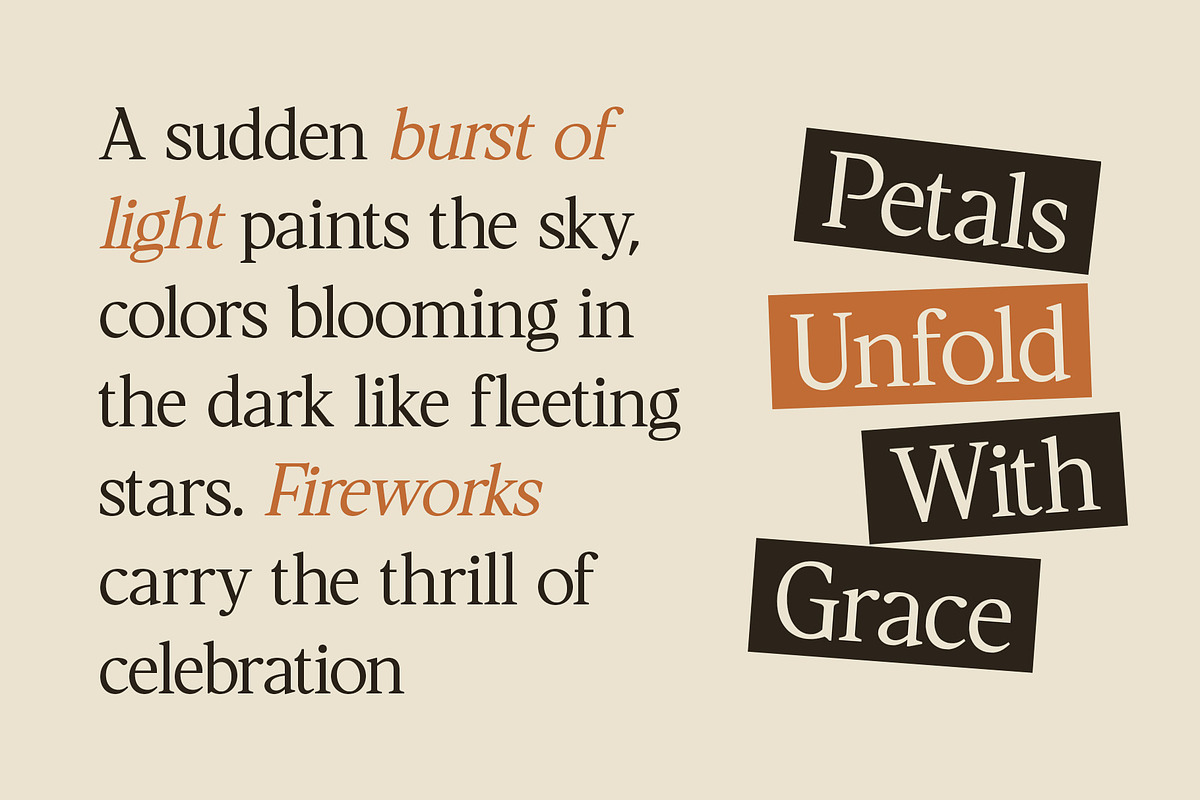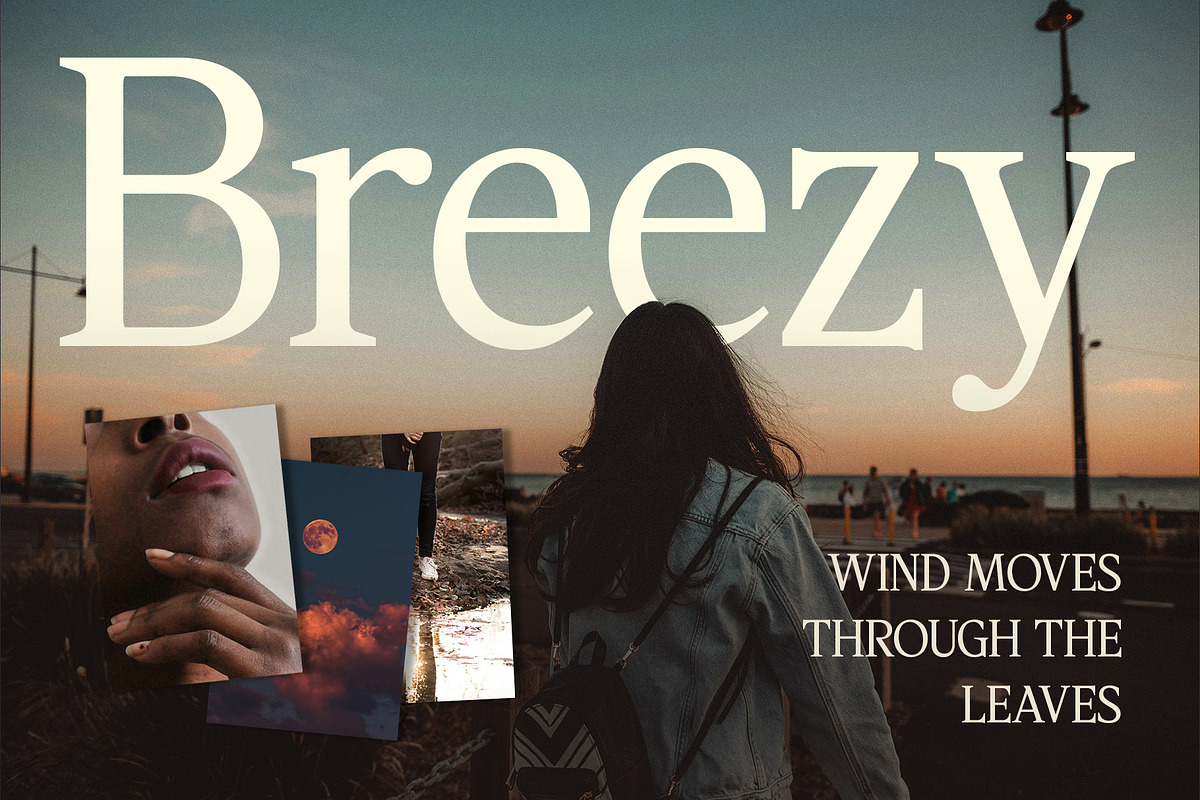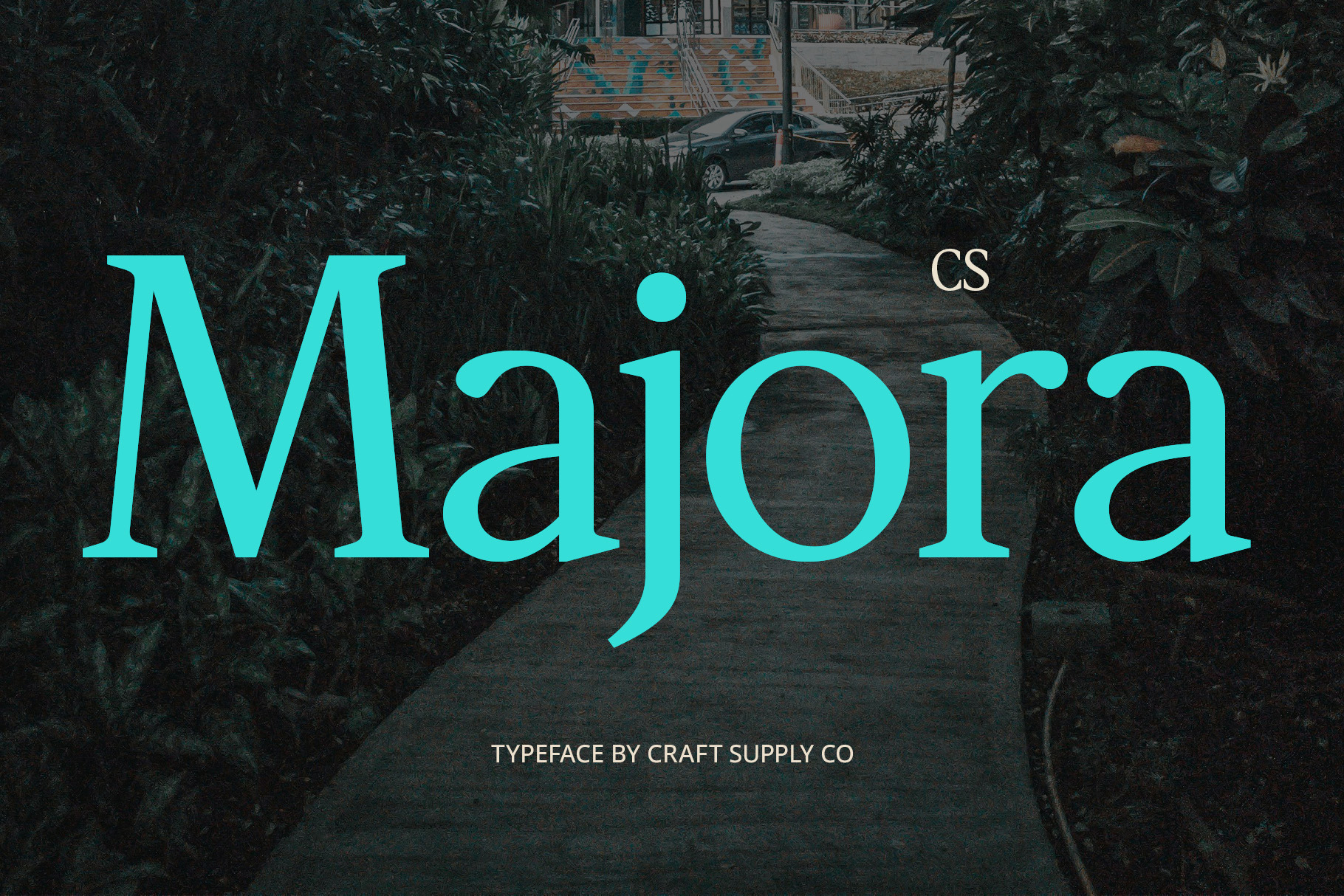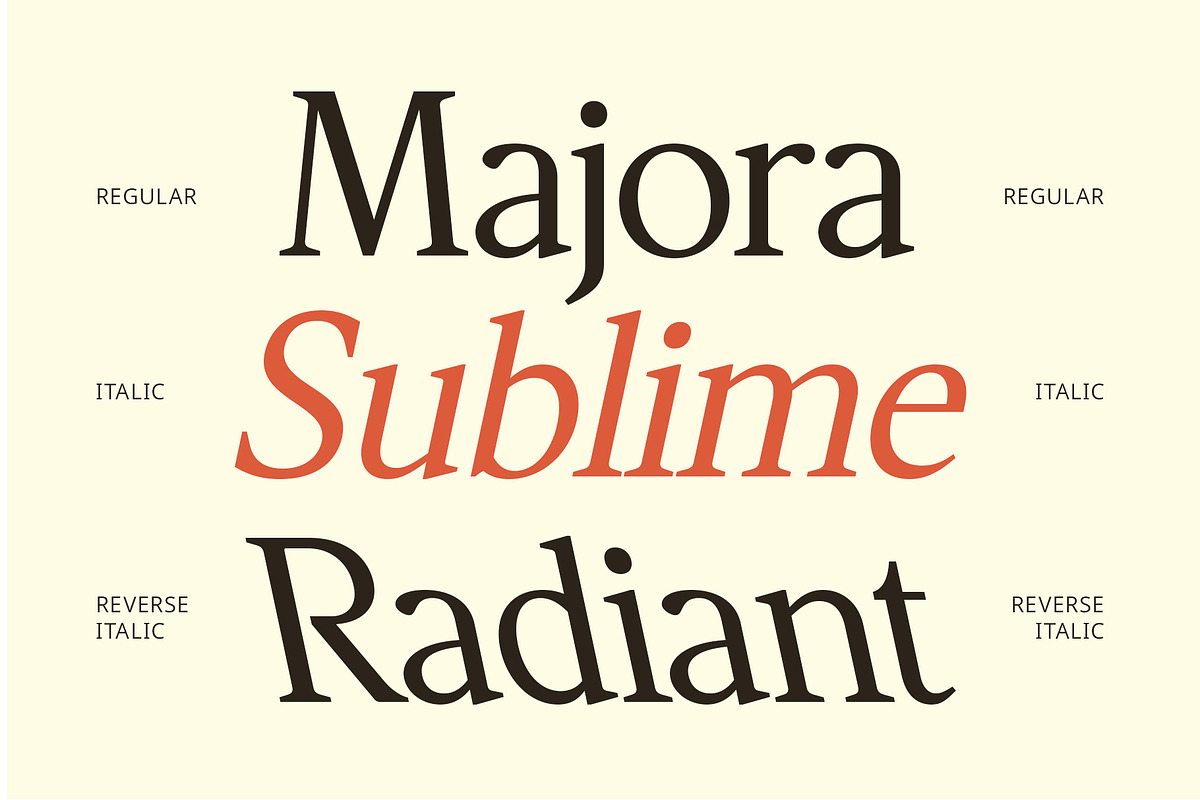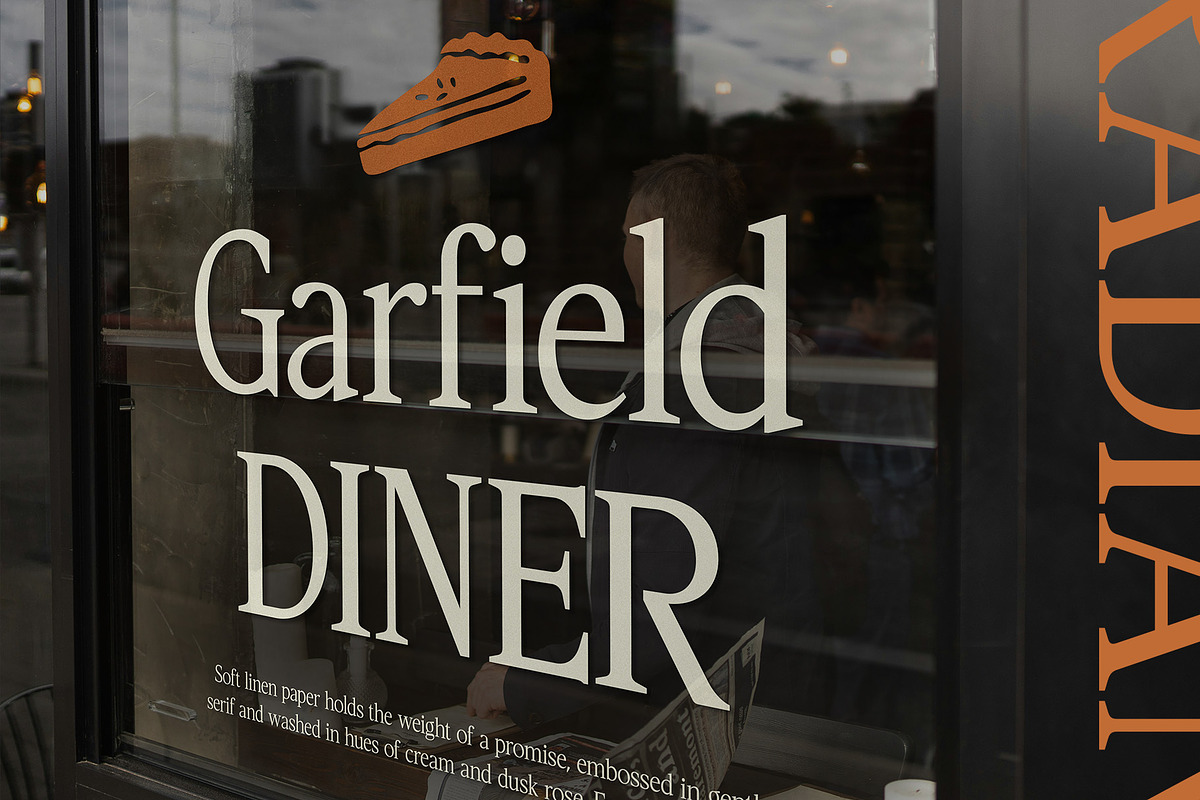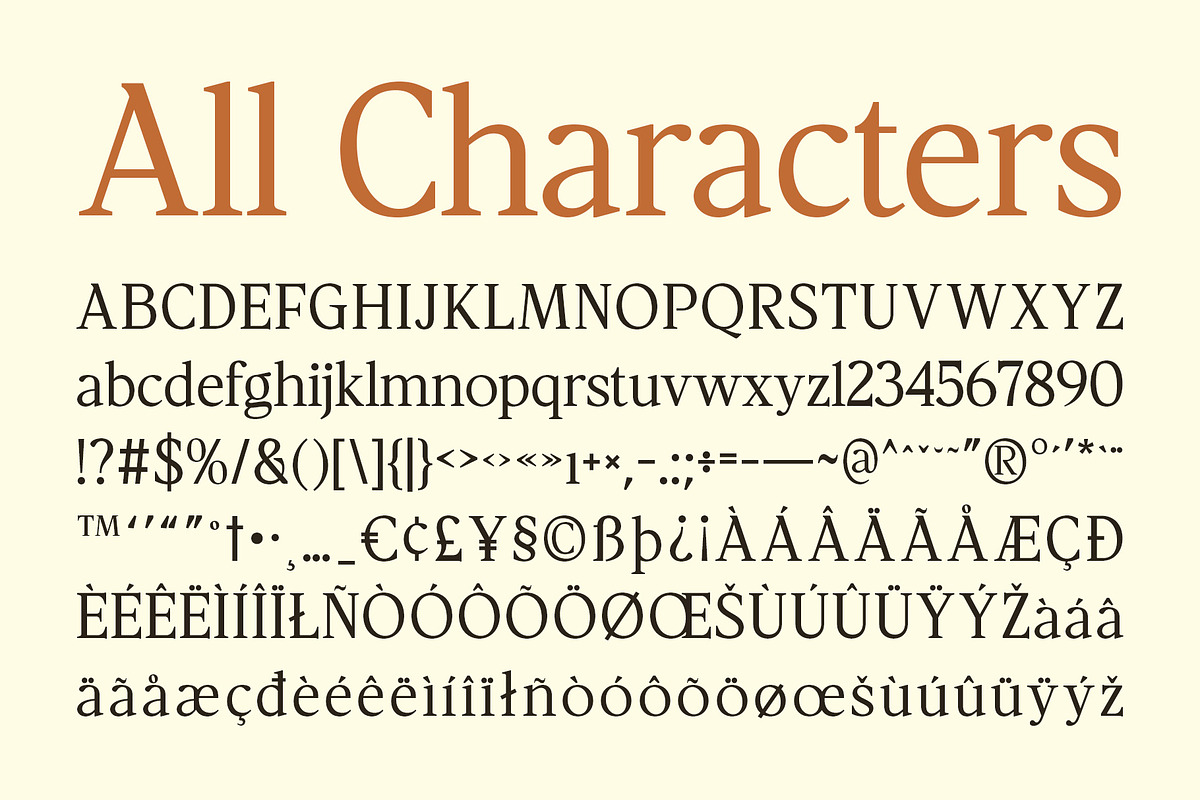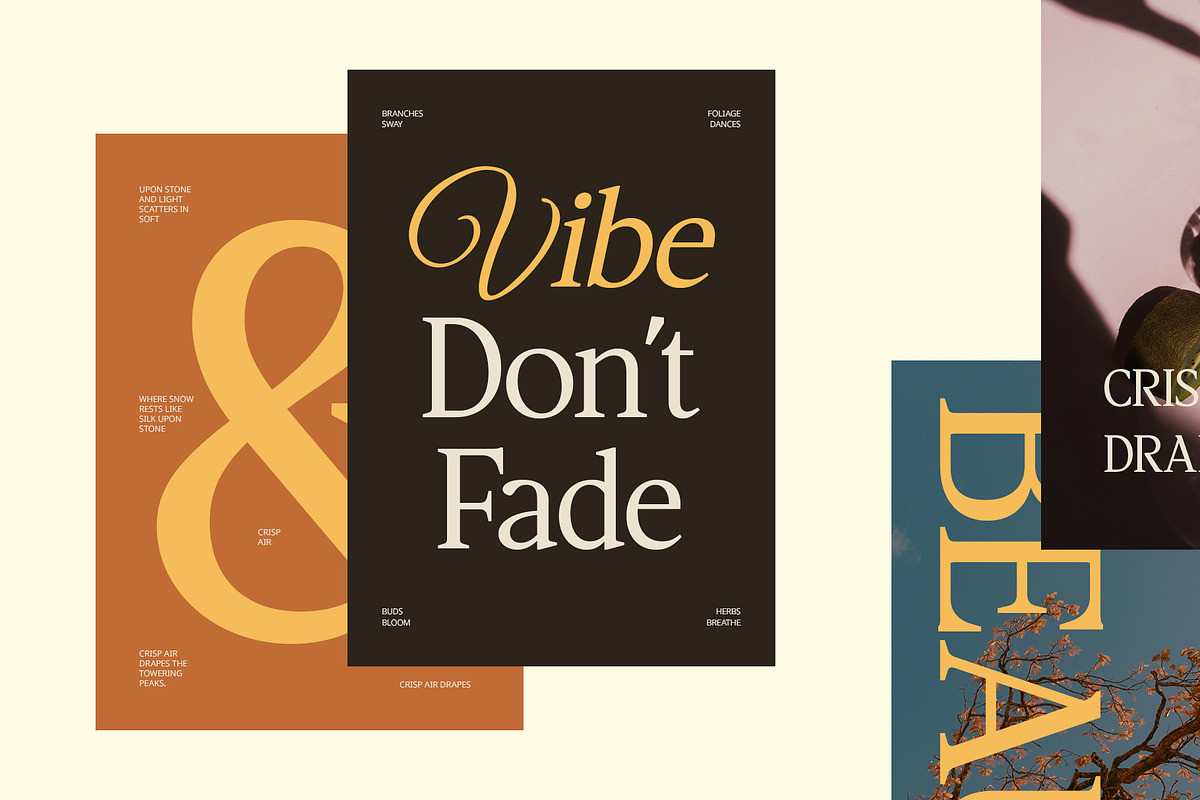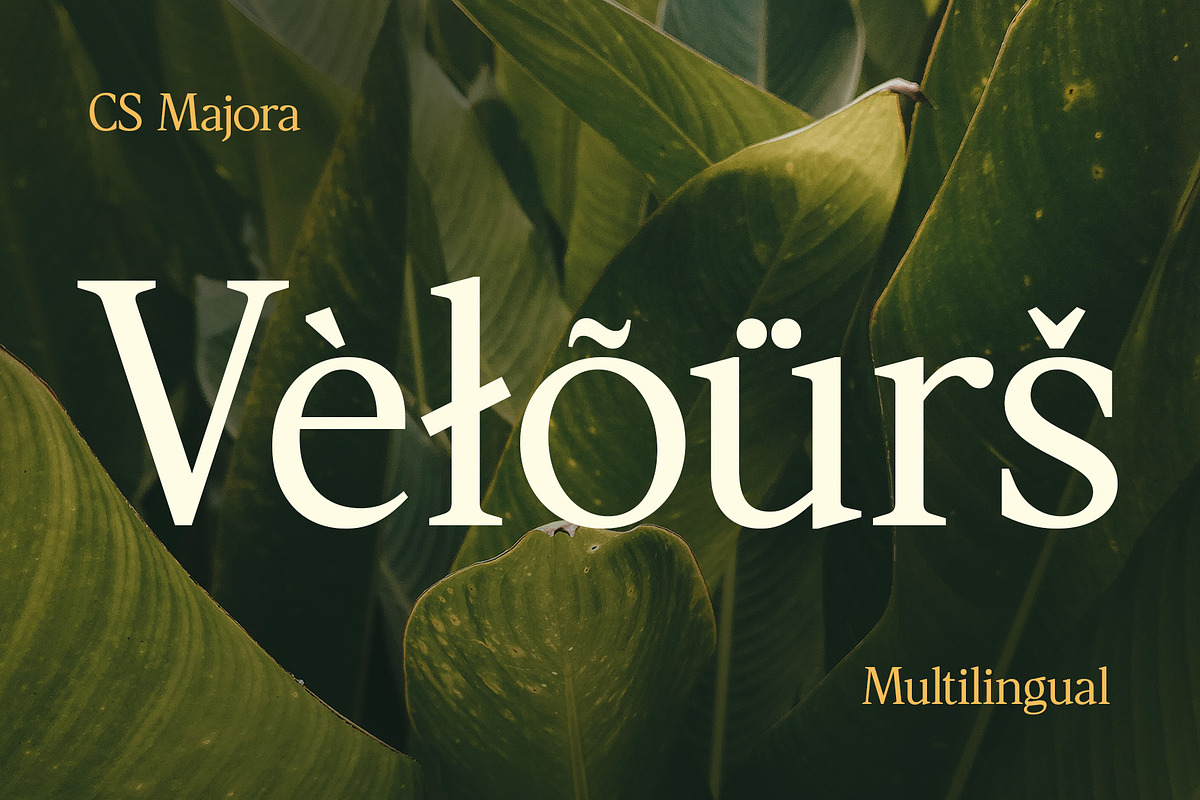
CS Majora – Contemporary Font
CS Majora Font – Contemporary Serif with Timeless Elegance
Traditional Grace Meets Modern Precision CS Majora is a contemporary serif font that reimagines classic typography through a clean, modern lens. With refined serifs, balanced proportions, and subtle detailing, it blends traditional elegance with a fresh, current aesthetic—perfect for creating designs that feel both timeless and forward-looking.
Professional Look with Subtle Character Designed for clarity and sophistication, CS Majora delivers a trustworthy and professional tone. Its well-crafted letterforms and even spacing create smooth visual flow, making it ideal for applications that require both authority and beauty—like editorial layouts, annual reports, or refined branding.
Versatile for Corporate and Editorial Use Whether you’re crafting a company profile, designing magazine headlines, or developing a corporate identity, CS Majora fits seamlessly into a wide range of professional contexts. It communicates reliability while adding a layer of style and grace to every project.
Timeless Style with Contemporary Appeal CS Majora’s charm lies in its ability to balance the old with the new. While it carries the heritage of classic serif design, its clean lines and modern sensibility ensure that it remains relevant in today’s visual landscape—making it a perfect choice for sophisticated, elegant, and enduring design work.